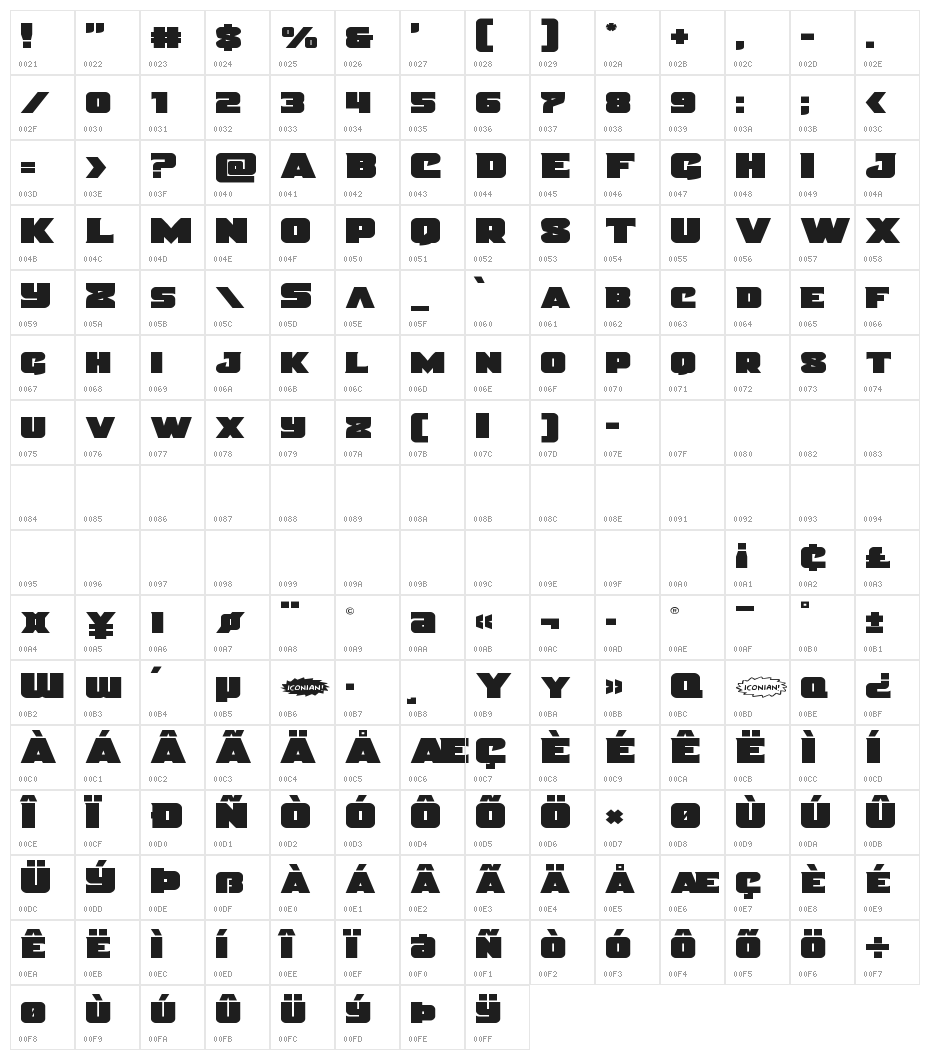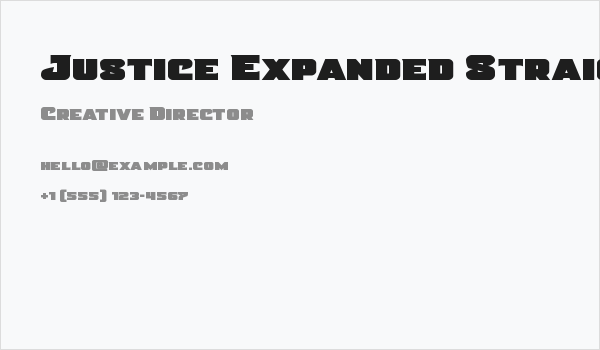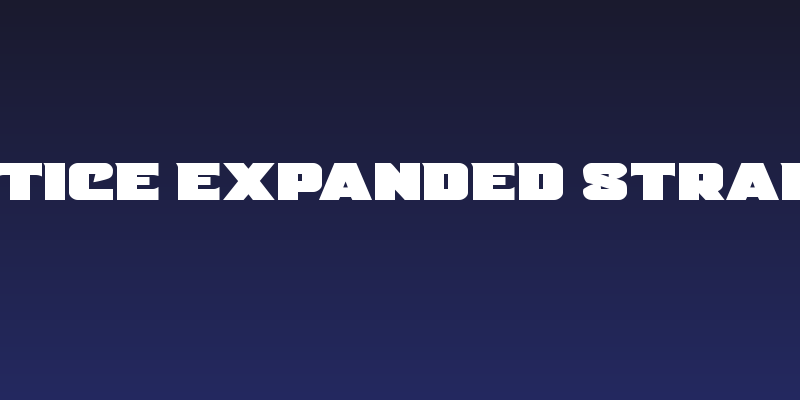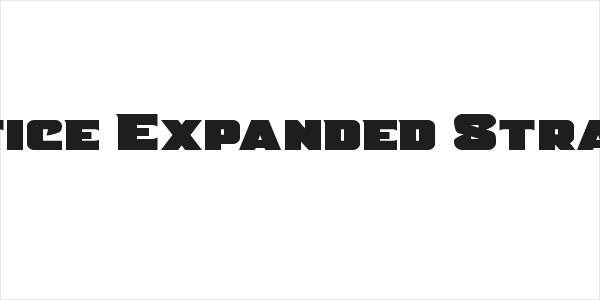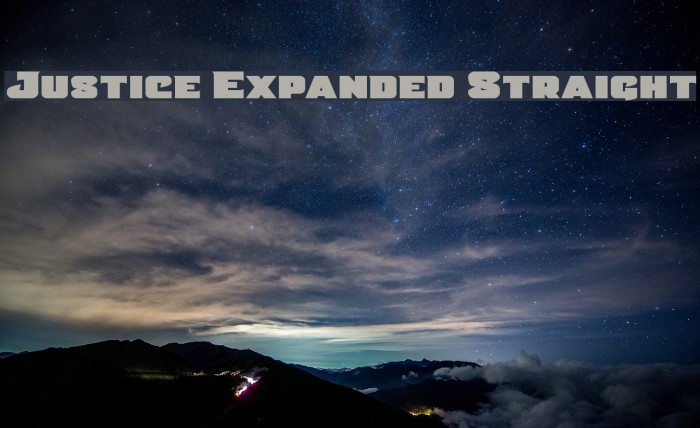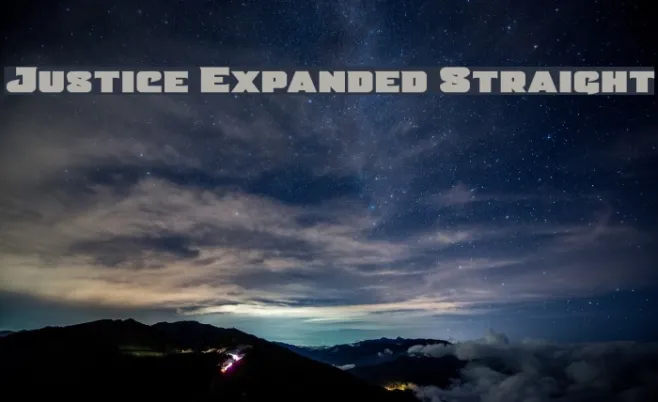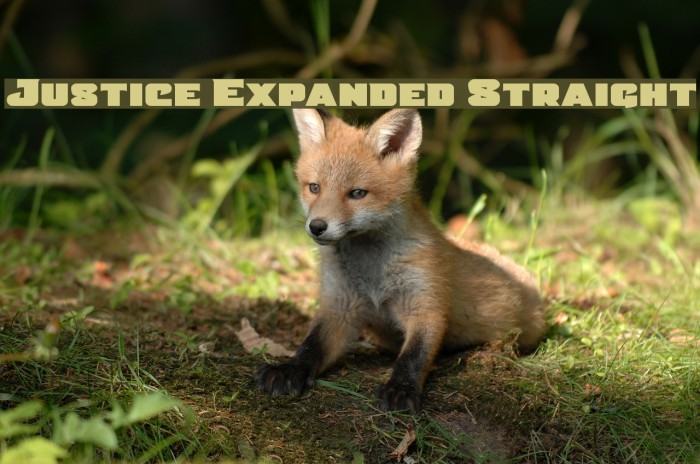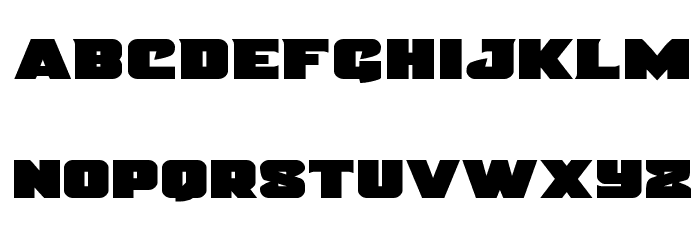
Justice Expanded Straight Font
Justice Expanded Straight Description
This font features bold, blocky characters with a strong presence, ideal for making a statement. The letters are uniformly expanded, giving them a wide stance that commands attention. The straight edges and sharp angles contribute to a modern and assertive look, while the consistent stroke width adds to its boldness. The numerals and special characters maintain the same robust style, ensuring uniformity across all text elements. This font is perfect for projects that require a powerful and impactful visual impression.
| Proposed Projects | Ideal for headlines, posters, branding, and any design that requires a bold statement. |